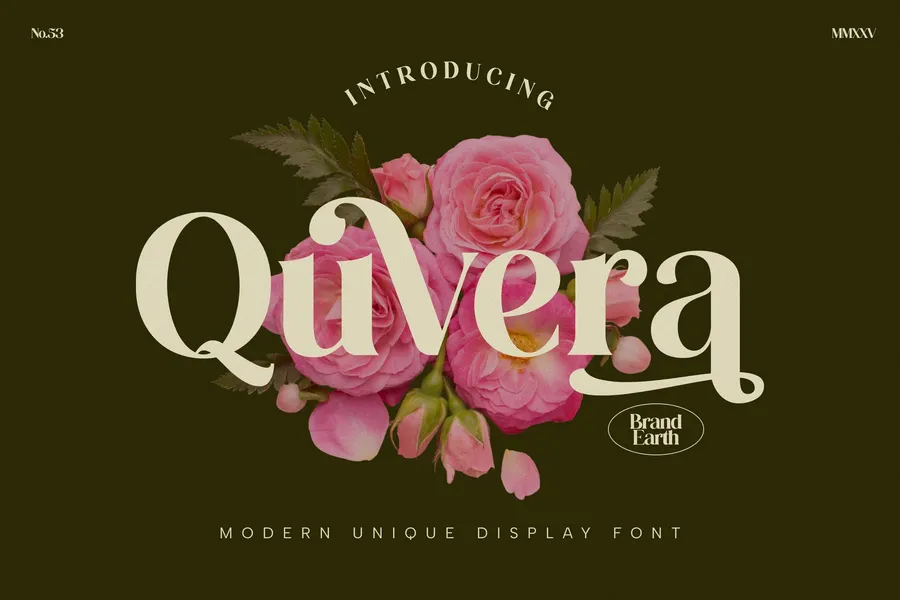
Quvera Serif Font
Quivera is an elegant serif display font that blends artistic flair with modern sophistication. Featuring floral accents and carefully crafted letterforms, it’s perfect for branding, fashion editorials, packaging, and aesthetic designs. The unique, decorative typography adds a blooming, creative touch to visual projects that demand both class and character. Ideal for designers seeking a stylish and visually captivating typeface.